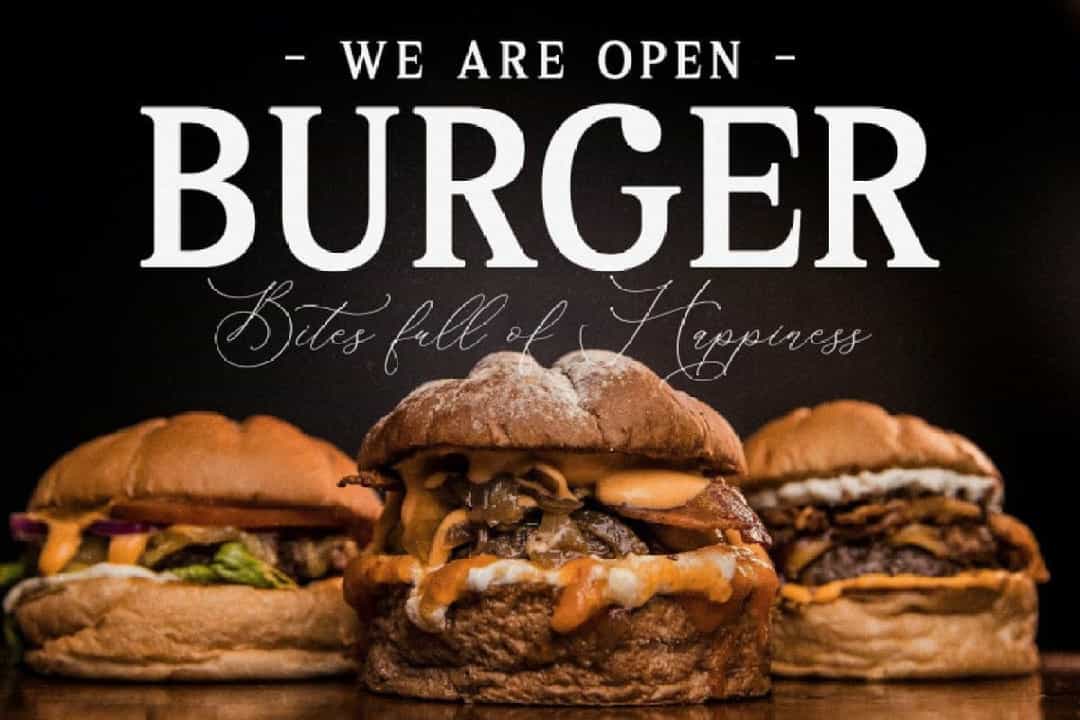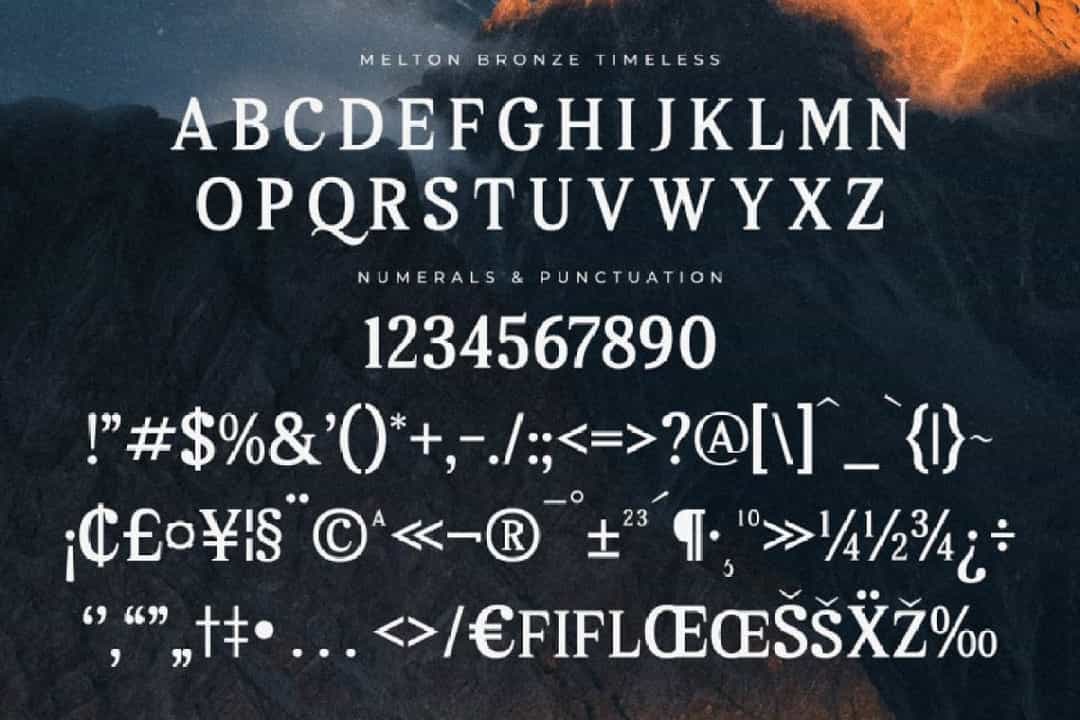
Melton Bronze Timeless is an elegant display serif font designed to create luxurious logos, movie or book titles, fashion labels and clothing items, letters quotations and much more.